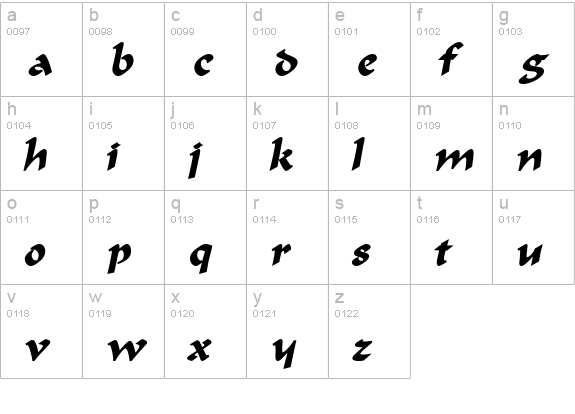
Marlin BoldItalic Font Details
Marlin BoldItalic is a striking and versatile font that adds a touch of elegance and sophistication to any design project. Its bold yet slanted characters create a unique visual impact, making it perfect for headlines, logos, and branding materials. With its carefully crafted curves and sharp edges, Marlin BoldItalic exudes a sense of confidence and modernity. Whether used in print or digital media, this font stands out and commands attention. One of the best things about Marlin BoldItalic is that it is available for free! That's right, you can freely download this incredible font at FontsMarket.com. This means that you can enhance your designs without worrying about any additional costs. Designed by a team of talented typographers, Marlin BoldItalic combines the best of both worlds - boldness and italic style. It effortlessly captures the essence of contemporary design and is sure to make a lasting impression on your audience. So, if you're looking to add a bold and italic touch to your next design project, look no further than Marlin BoldItalic. Download it for free at FontsMarket.com and elevate your designs to the next level.